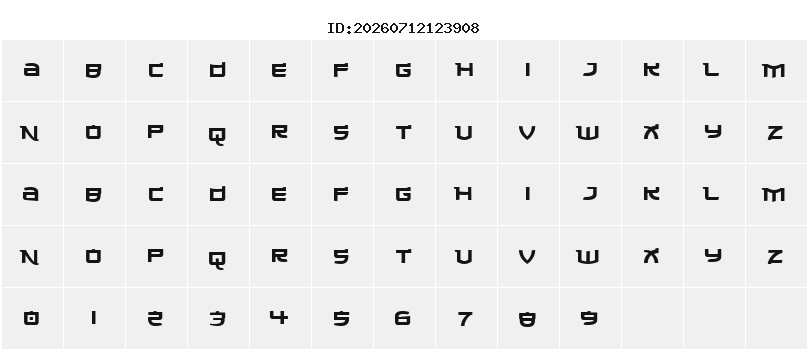
• Font Name: Made in China
• Full Font Name: Made in China
About Made in China.ttf
Made in China.ttf is a modern, elegant sans-serif font designed for ultimate readability and visual harmony. Perfect for branding, headlines, web design, and print materials.